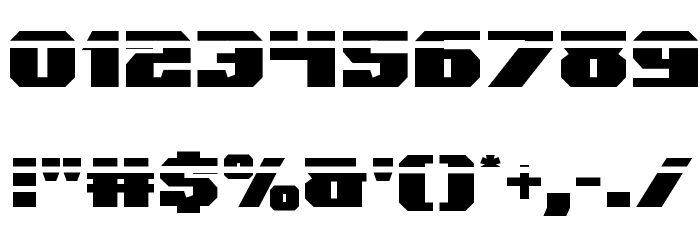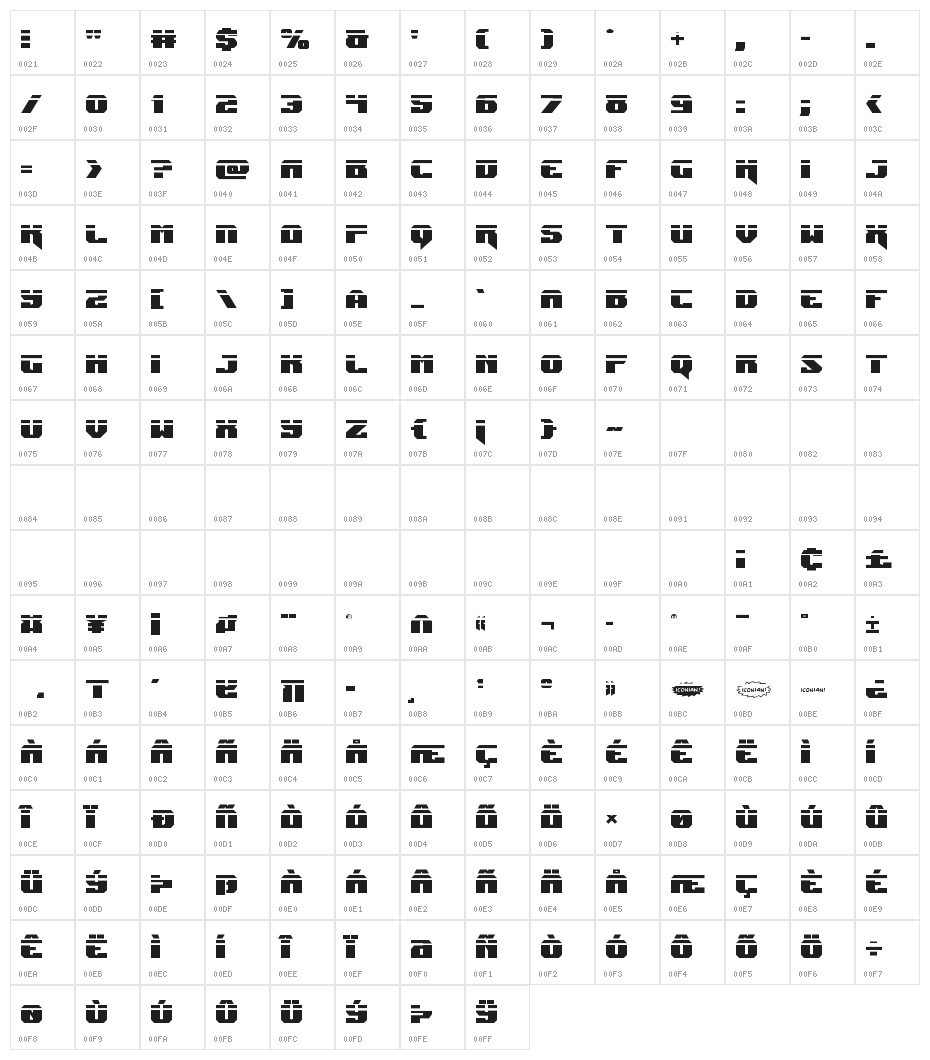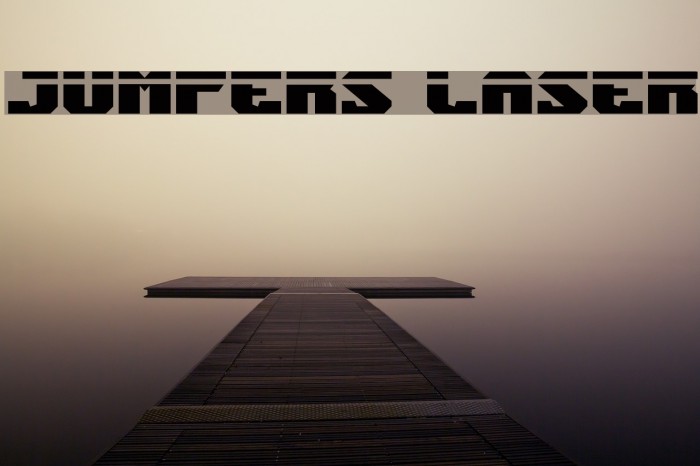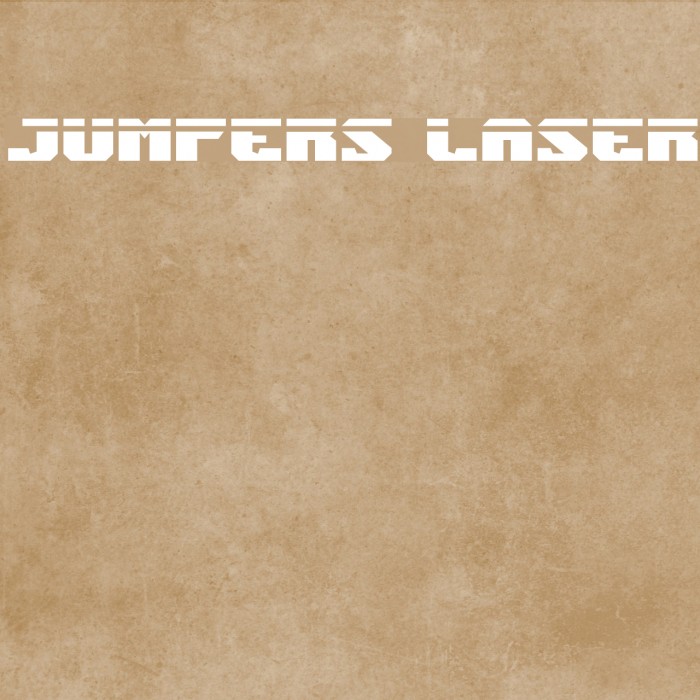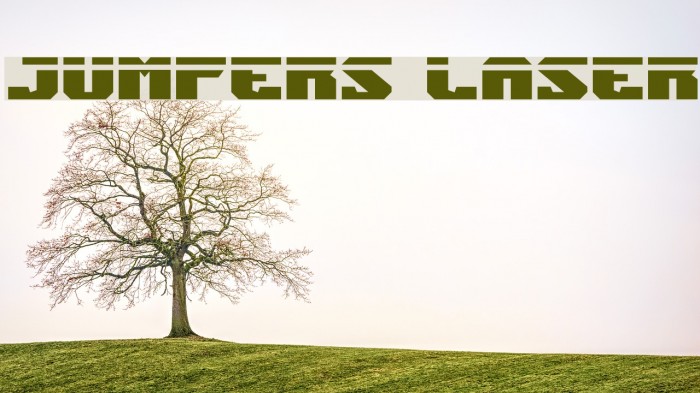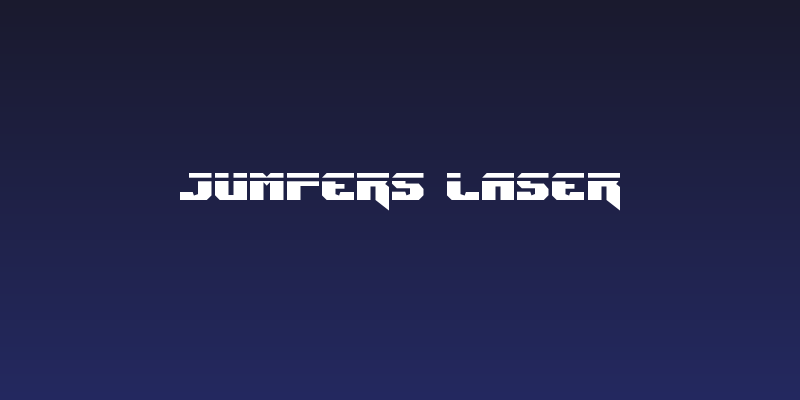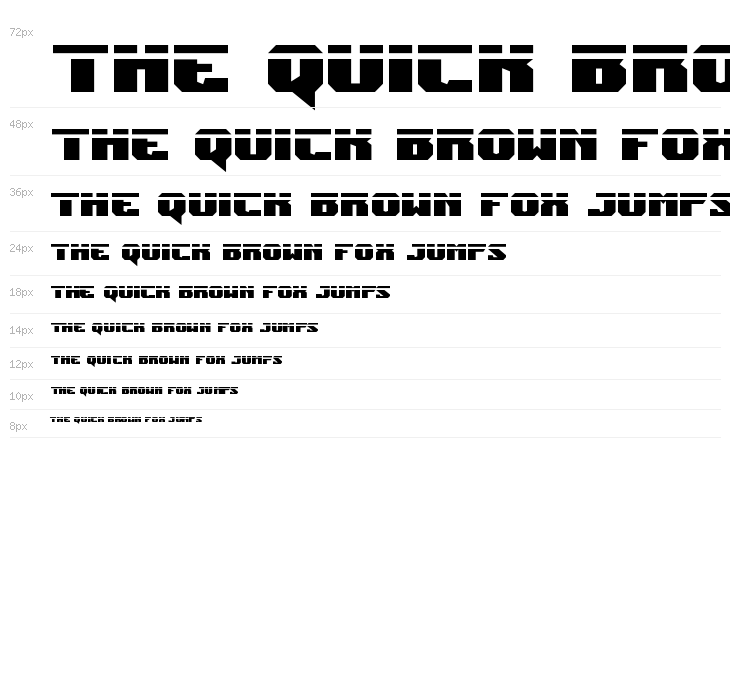
Jumpers Laser Font
Jumpers Laser Description
This font features a bold and futuristic design with sharp, angular edges and a geometric structure. Each character is crafted with a distinct blocky appearance, giving it a strong and impactful presence. The uppercase and lowercase letters maintain a consistent style, with the uppercase being slightly more pronounced. The numbers and special characters follow the same design principles, ensuring uniformity across all elements. The font's unique style makes it ideal for projects that require a modern and edgy look, such as technology-related branding or sci-fi themed designs.